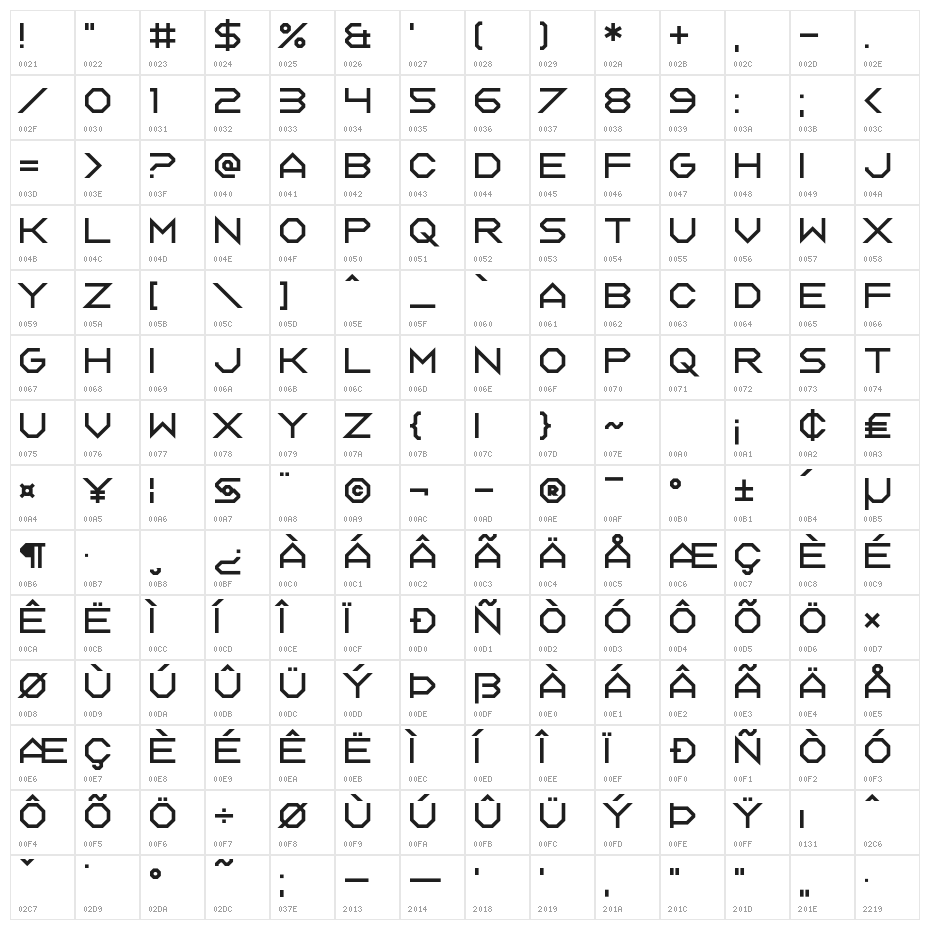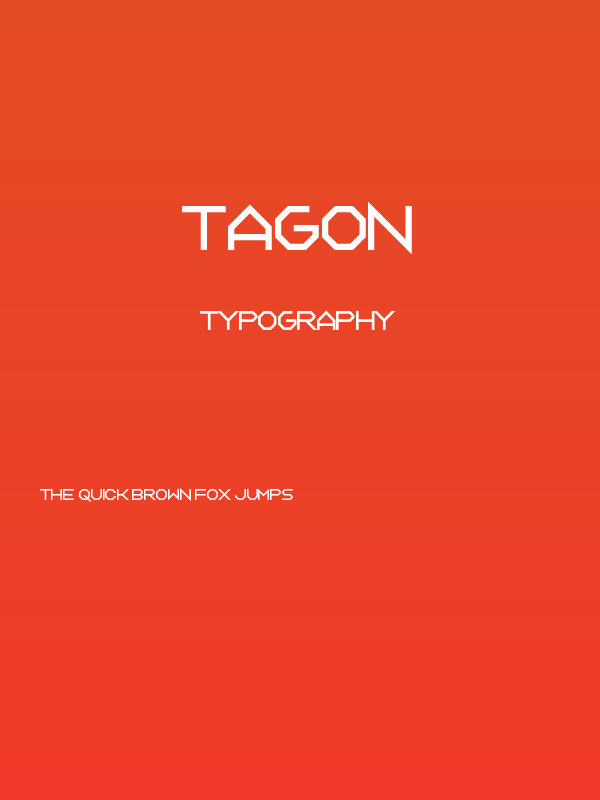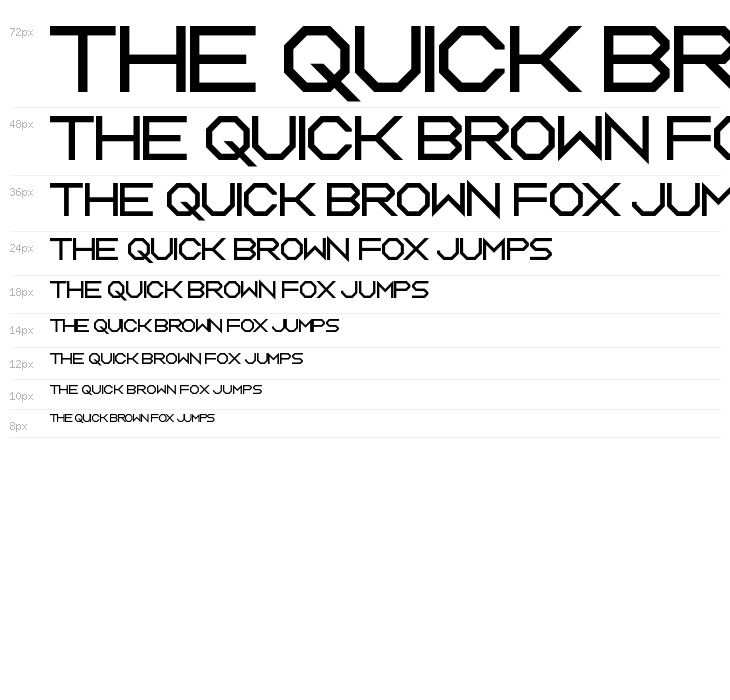
Tagon Font
Tagon Description
This font features a geometric and angular design, characterized by its sharp, clean lines and distinct edges. The uppercase letters are bold and uniform, creating a strong visual impact. The numerals and special characters maintain the same angular style, ensuring consistency across all elements. The font's structure is reminiscent of digital or futuristic themes, making it suitable for modern and tech-oriented projects. Its unique style is both eye-catching and easily readable, making it versatile for various design applications.
| Proposed Projects | Ideal for tech branding, digital interfaces, video game titles, and modern posters. |